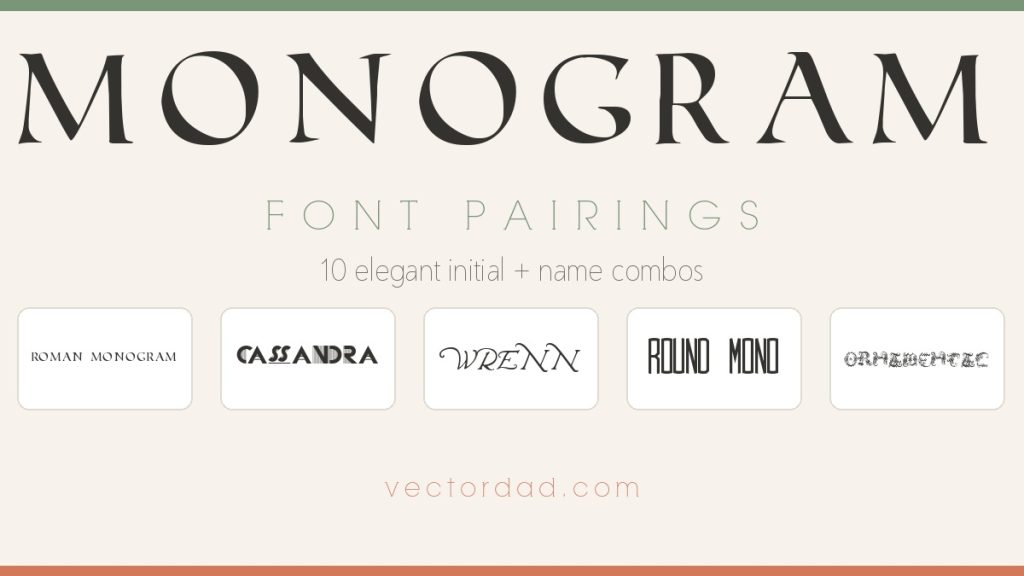
A monogram turns a plain object into a keepsake. The moment you add a single elegant initial and a name, a blank tumbler becomes Brooke’s tumbler, a canvas tote becomes a thoughtful gift, and a doormat starts welcoming people by name. The two fonts you choose – the decorative initial up top and the name underneath – decide whether that lockup looks like a polished boutique product or a clip-art afterthought.
Monogram font pairing is the craft of combining one expressive initial font – a split monogram, a vine or framed letter, an Art-Deco cap or a flourished script initial – with one calm name font that keeps the personalisation clear and readable. Below are five monogram pairings, every one built from free fonts you can download here on VectorDad, rendered onto a real framed-print mockup so you can see exactly how each lockup looks before you download a thing.
How to Pair Fonts for a Monogram: 4 Quick Principles
Before the examples, here are the rules that make a two-font monogram lockup work. Keep these in mind and you can build personalised lettering far beyond this list.
Let the initial be the star. The decorative letter is the centrepiece, so give it room to show off its flourishes, fills or frame. Set it large and centred, and keep the name line noticeably smaller so the eye lands on the monogram first.
Pair ornate with simple. If your initial is highly decorated – a vine, a Victorian flourish or an Art-Deco inlay – anchor it with a clean, quiet name font. Two busy fonts compete; one characterful initial over a calm name reads as elegant rather than cluttered.
Match the mood. A Didone initial feels formal and bridal, an Art-Deco cap feels modern and chic, a flourished script initial feels like an heirloom. Choose a name font that echoes that mood – calligraphy with formal, geometric sans with modern, refined serif with classic.
Mind the spacing. Monograms live on curved tumblers, woven totes and textured doormats, so leave generous breathing room around the lockup and add a little letter-spacing to short caps names. Clean space is what keeps a monogram looking premium once it is printed, etched or cut in vinyl.
5 Monogram Font Pairings
1. Roman Monogram + Champignon
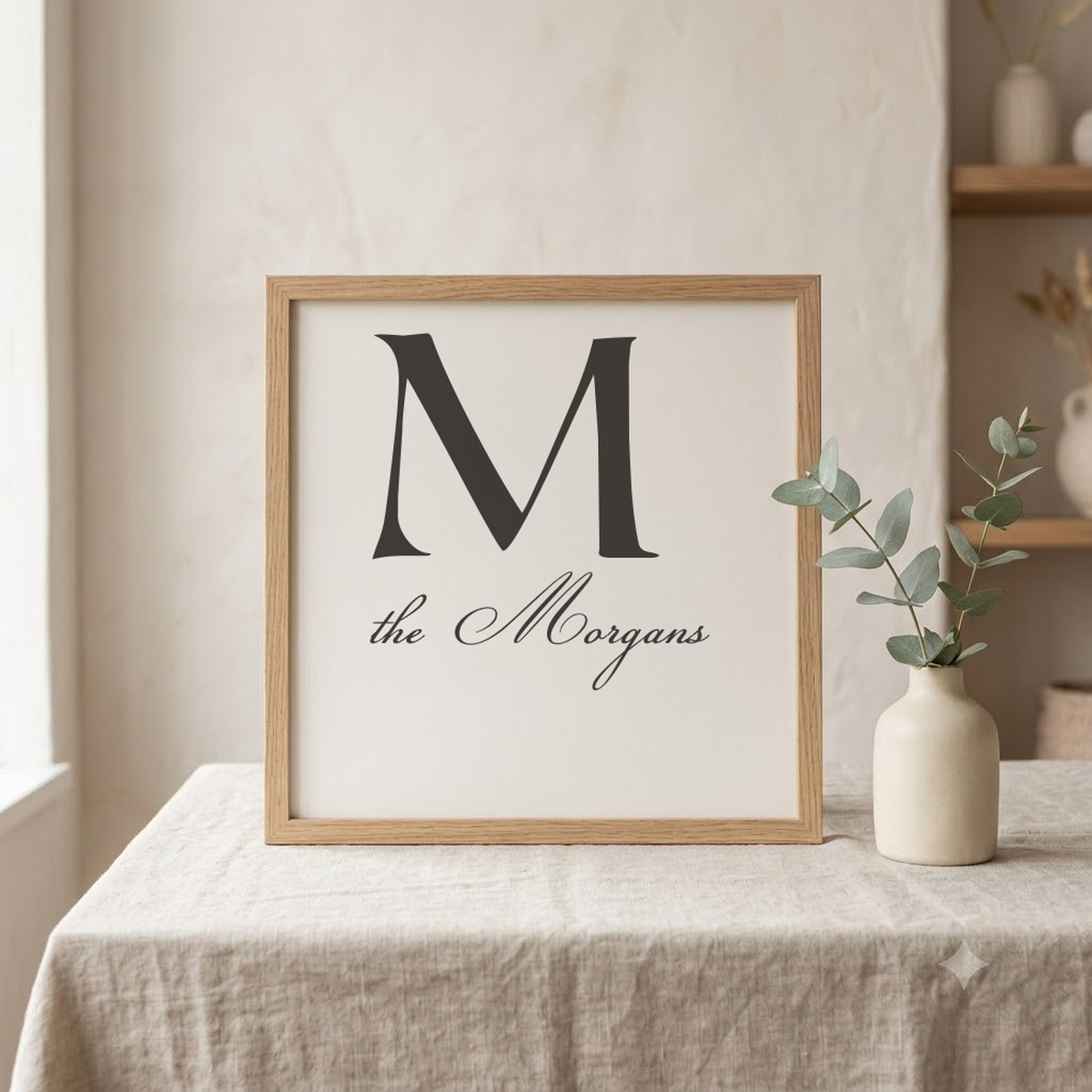
Why it works: Roman Monogram is a high-contrast Didone-style capital with elegant thick-and-thin strokes that look expensive at any size – the classic “big initial” letter. Pairing it with the formal calligraphy of Champignon keeps the family name flowing and refined beneath it, so a single letter and a surname read as a balanced, bridal-quality lockup.
Use it for: wedding monogram signs, family-name wall art, anniversary gifts, and elegant established-family doormats.
2. Cassandra + RNS Camelia
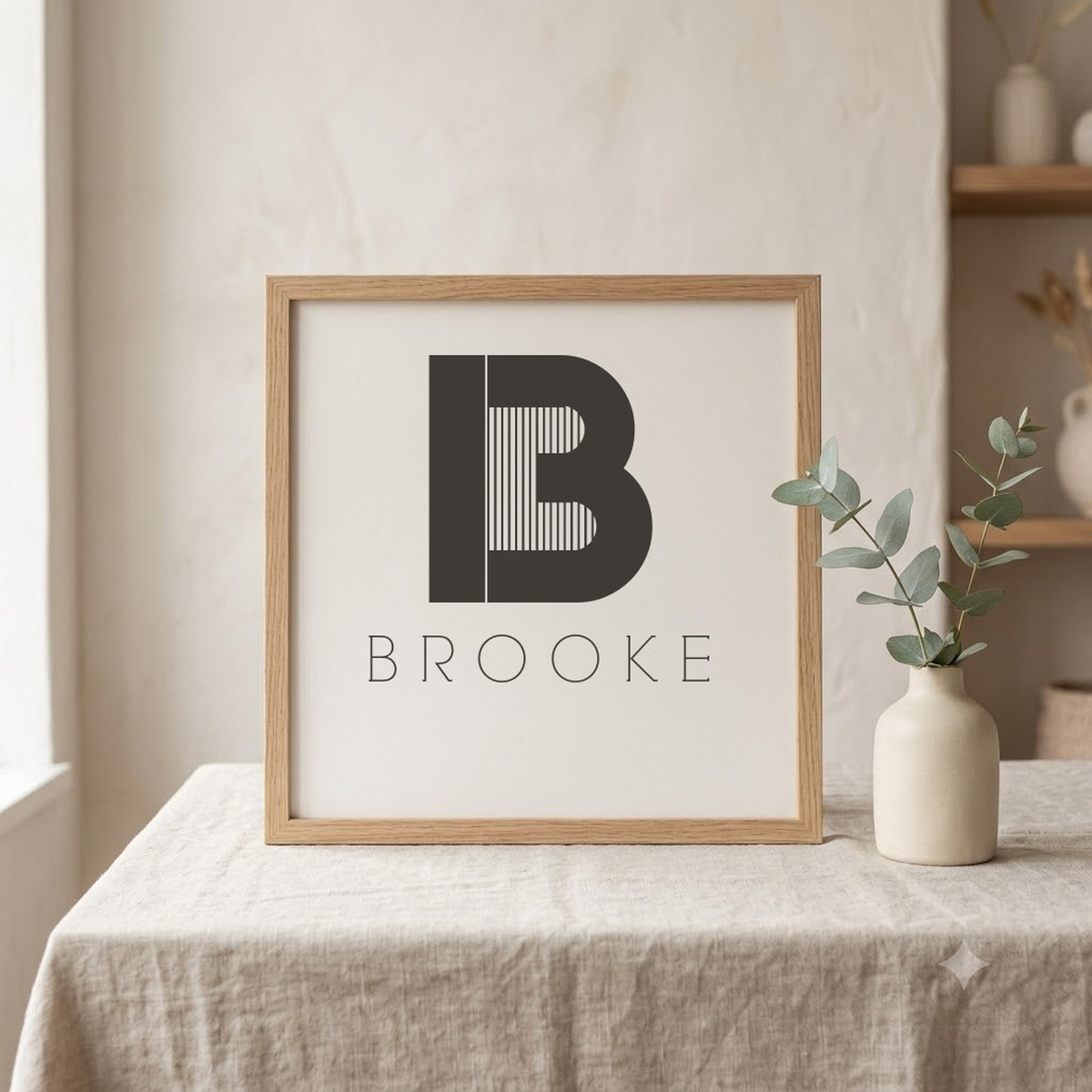
Why it works: Cassandra is an Art-Deco capital with a striking vertical-line inlay that turns a single letter into a graphic centrepiece. Setting the name in the airy, geometric RNS Camelia with wide letter-spacing keeps the lockup modern and gallery-clean – bold initial up top, whisper-quiet name underneath.
Use it for: modern tumblers and water bottles, minimalist desk name plates, chic gift tags, and contemporary monogram prints.
3. Wrenn Initials + Quincy
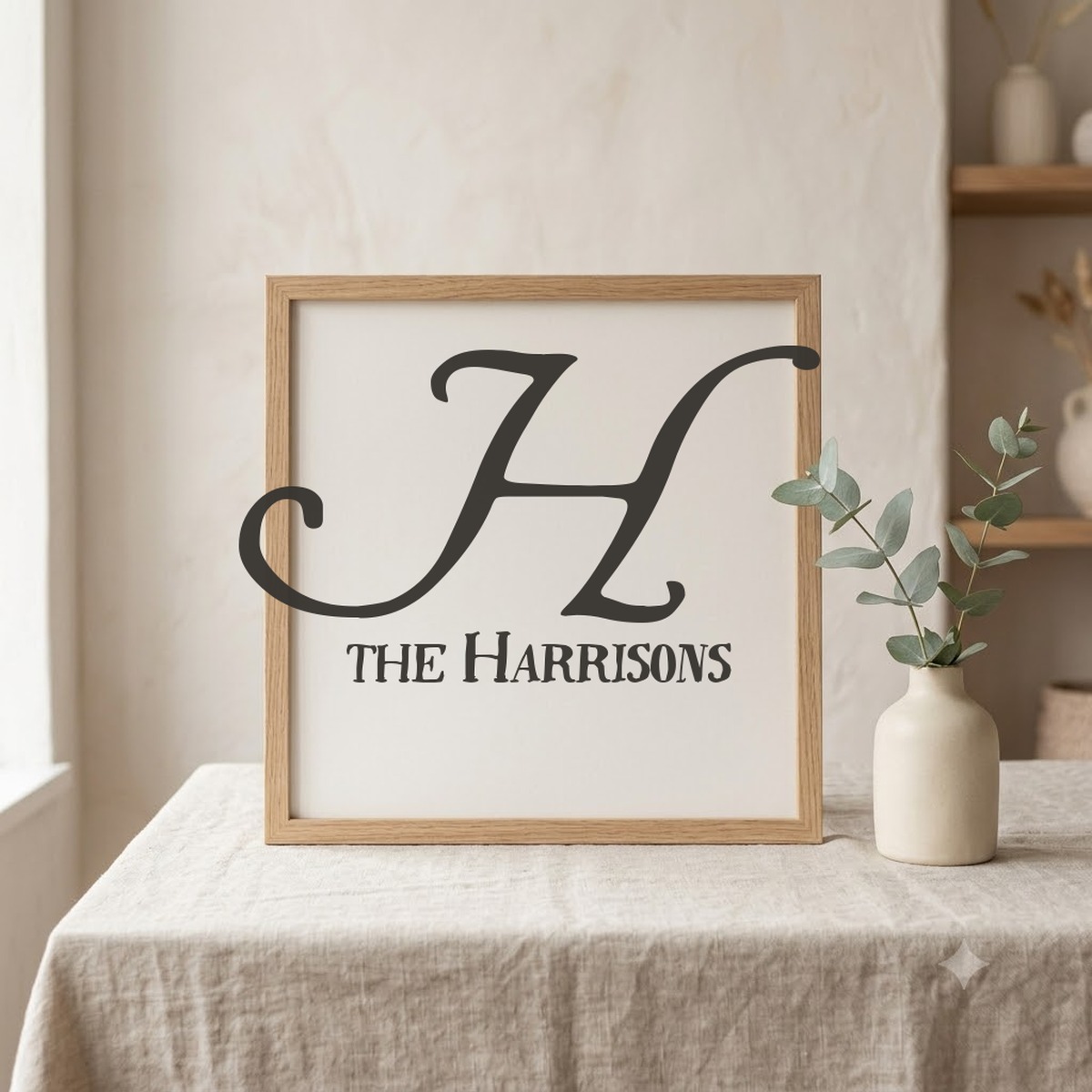
Why it works: Wrenn Initials is a flourished decorative capital whose generous swashes sweep right under the name – a true ornamental initial. Grounding all that movement with the refined small-caps serif Quincy adds a steady, heirloom-quality base, turning a flourish and a surname into a timeless family crest.
Use it for: established-family doormats, monogrammed cutting boards, housewarming gifts, and vintage-style entryway signs.
4. Round Monogram + Peony
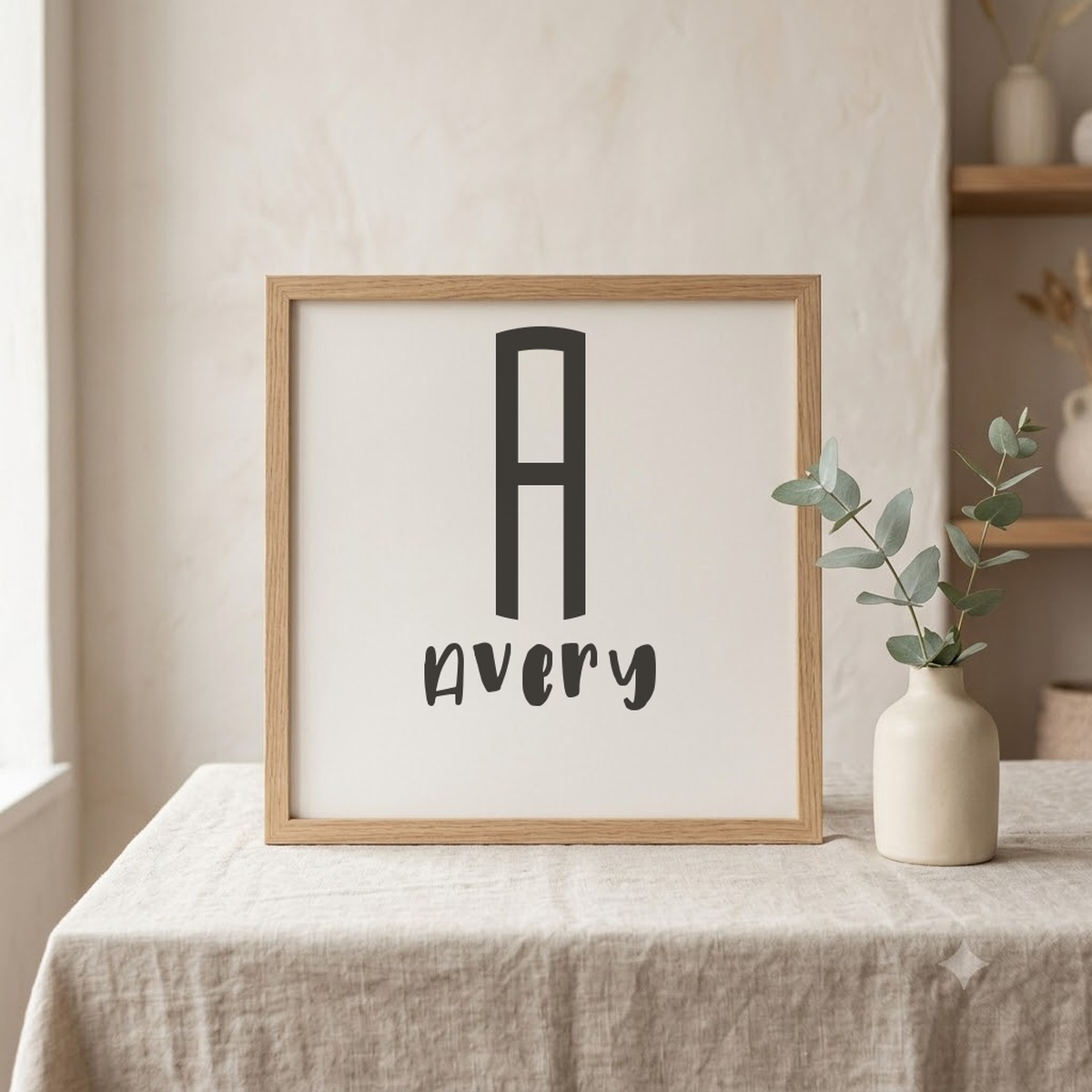
Why it works: Round Monogram is a tall, split-style monogram capital – the iconic look with a clean bar through the centre that feels made for a single bold initial. Pairing it with the friendly marker hand of Peony keeps a first name playful and personal, perfect for everyday personalised items rather than formal ones.
Use it for: canvas totes, kids’ water bottles, casual gift mugs, and personalised stationery.
5. Ornamental Initial + Botterill Signature
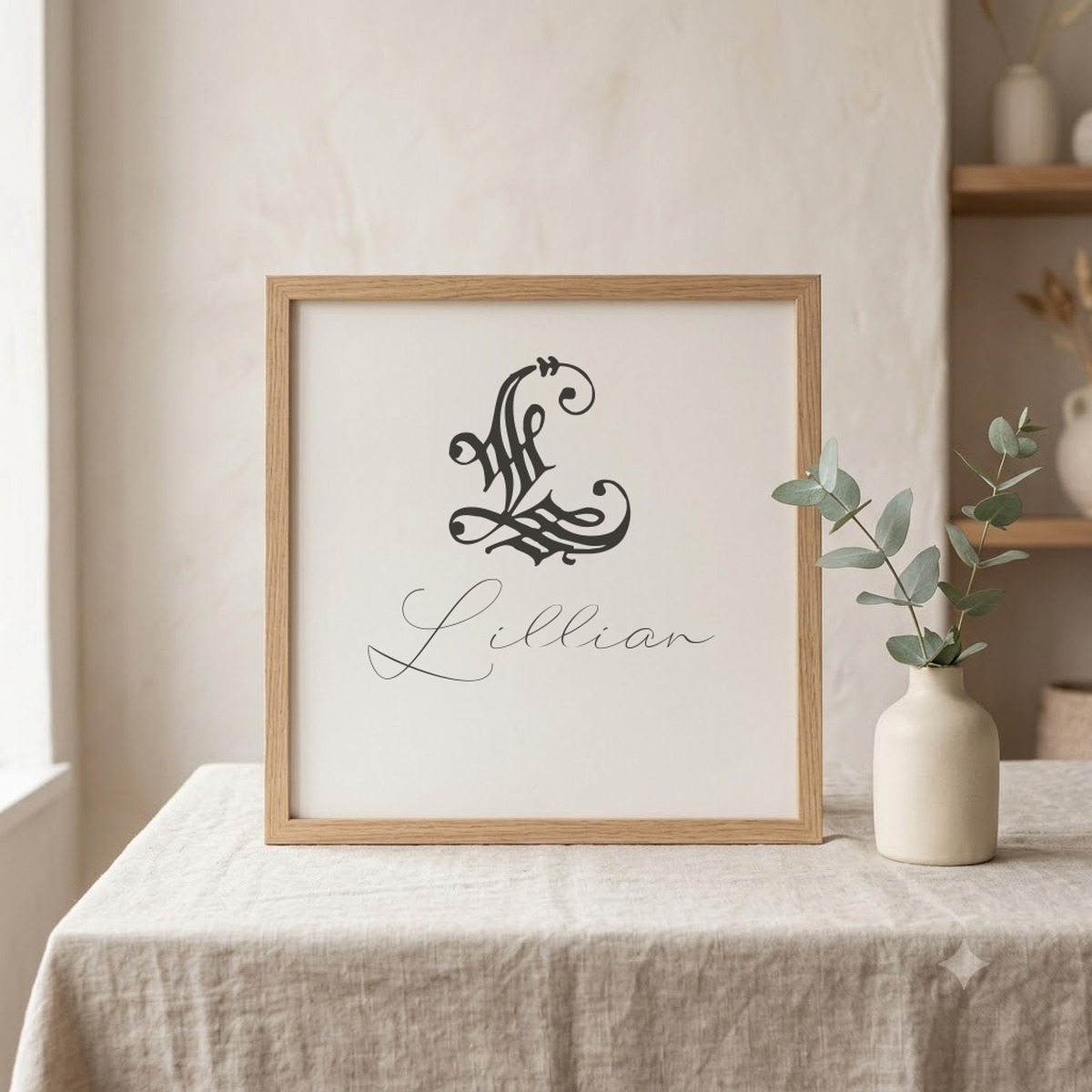
Why it works: Ornamental Initial is a richly decorated Victorian capital, every letter a tiny piece of filigree art. Because it is so ornate, it pairs beautifully with the fine, delicate script of Botterill Signature, which keeps the name light and modern so the lockup feels like a curated keepsake instead of a clash.
Use it for: vintage-style stationery and bookplates, keepsake jewellery boxes, monogram wax-seal designs, and elegant gift labels.
5 More Monogram Pairings to Try
Once you understand the ornate-initial-plus-calm-name formula, the same ten fonts remix into plenty more monogram-ready lockups:
- Roman Monogram + RNS Camelia – a Didone initial over a geometric sans for clean, modern monogram wall art.